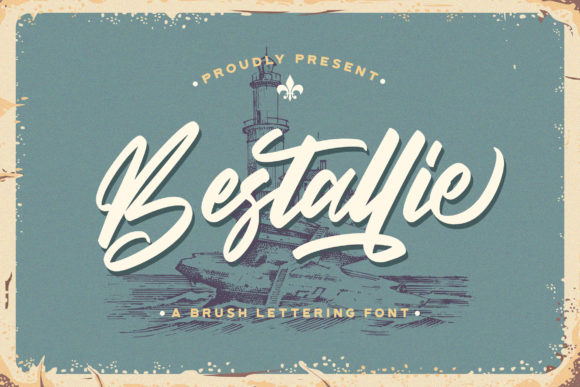
Introducing our captivating collection of Bestallie fonts, an enchanting celebration of handwritten artistry. These scripts dance gracefully across your screen, each letter a testament to the beauty of human expression.
Unleash your creativity with Bestallie, a font family that was crafted to bring your words to life. Whether you're designing logos that demand attention or creating quotes that resonate, Bestallie is the perfect choice. Its timeless design ensures that your message will endure, leaving an unforgettable impression on all who encounter it.
Step into a world of elegance and charm, where every letter is a masterpiece. Bestallie's unique and beautiful touch will transform your designs into works of art, capturing the essence of your individuality.
Experience the joy of writing with Bestallie. Its free-flowing strokes evoke a sense of effortless grace, making it a delight to use. Let your imagination soar as you create logos that leap off the page, branding that commands respect, and quotes that inspire and uplift.
With Bestallie, the possibilities are limitless. Discover the magic of handwritten fonts today and elevate your designs to new heights. Embrace the power of Bestallie and let your creativity shine!